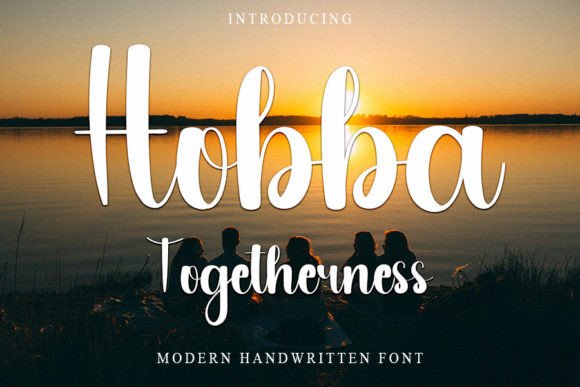
Behold, Hobba Togetherness – a remarkable script font, born from the passion of PiPi Creative, ready to bless your projects with its beautiful handwritten style. This elegant font, a testament to timeless beauty, will effortlessly elevate your designs, leaving a lasting impression that speaks volumes.
Unleash your creativity and let Hobba Togetherness guide you in crafting stunning logos that resonate with your brand's essence. Its delicate curves and graceful lines will add a captivating charm to your designs, attracting attention and leaving a lasting impact. Imagine your brand adorned with this elegant script, commanding attention in the vast digital landscape.
With Hobba Togetherness, you hold the key to unlocking a world of possibilities for your website's design. Infuse your online presence with a touch of sophistication and elegance that reflects your brand's professionalism. Let your website exude confidence and authority, exuding a sense of trust among your visitors.
Step into the world of social media and let Hobba Togetherness amplify your presence, making each post, story, and update an expression of your brand's unique personality. Its timeless style will complement your content, adding a touch of refinement that sets you apart from the noise. Engage your audience, capture their attention, and create a lasting connection that drives engagement and growth.
Hobba Togetherness is more than just a font; it's an investment in your brand's identity. Its timeless appeal and versatility make it the perfect choice for businesses seeking to establish a strong and lasting impression. Seize this opportunity to elevate your brand, connect with your audience, and achieve remarkable success. Embrace the power of Hobba Togetherness and witness the transformation of your designs into masterpieces of elegance and sophistication.